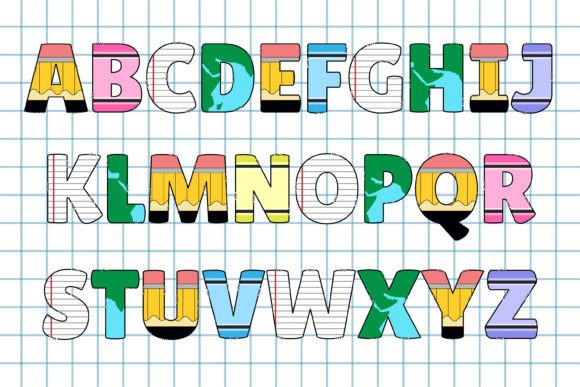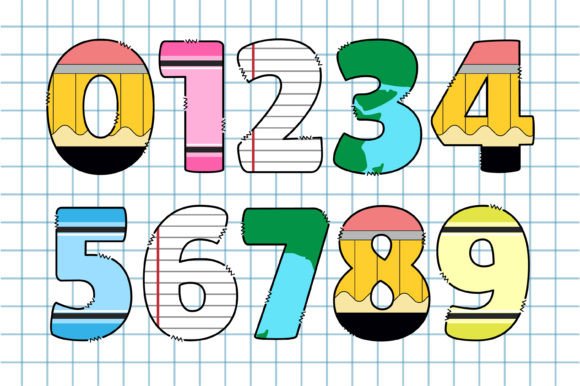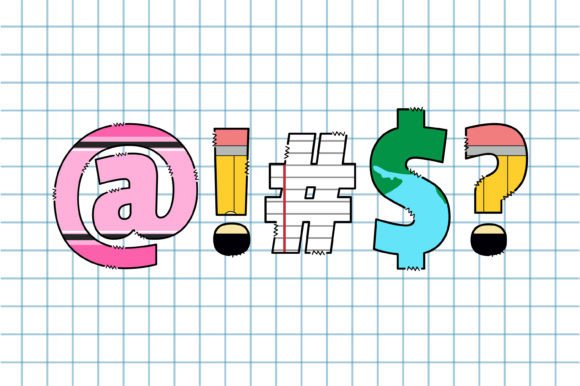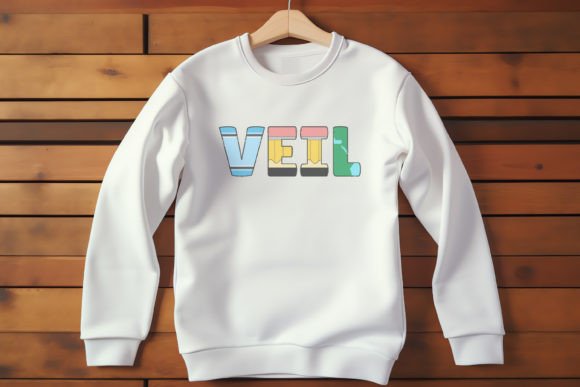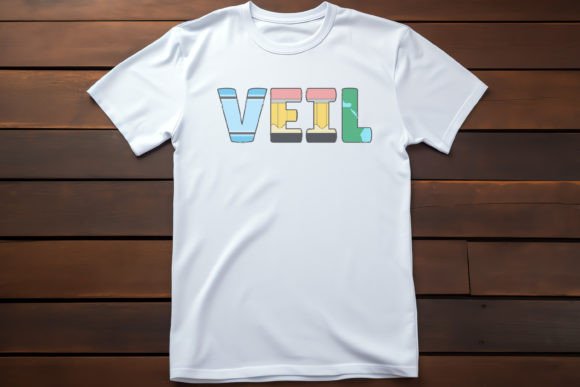
Getting Creative for the New School Year
As summer comes to a close, many of us are itching to get creative and dive into new projects. For designers, this can mean anything from designing eye-catching posters for the school hallway to crafting custom invitations for back-to-school parties. If you’re anything like us, you’re always on the lookout for the perfect font to bring your designs to life.
That’s where the Back to School Font comes in – a playful and artistic font designed specifically for kids’ projects and educational materials. With its whimsical feel and easy-to-read layout, this font is perfect for creating engaging designs that kids will love. Plus, its compatibility with popular design programs like PhotoShop and Illustrator makes it a valuable tool for designers looking to add a little extra flair to their projects.
Key Features of “Back to School Font”
- Font Family: A custom-designed sans-serif font family, specifically created for educational and back-to-school themes.
- Unique Characteristics: Features a distinctive, child-friendly design with rounded edges and friendly letterforms, perfect for educational materials and back-to-school branding.
- Language Support: Includes support for Latin, Cyrillic, and Greek scripts, making it suitable for multilingual educational content.
Back to School Font Review
I must say, I was initially drawn to the “Back to School Font” due to its playful, childlike aesthetic. The font’s rounded edges and bold lines evoke a sense of nostalgia and friendliness. ✨ It’s perfect for creating eye-catching promotional materials, such as flyers or posters, for back-to-school events or sales.
- The font’s versatility is a major plus. It can be used in a variety of contexts, from educational institutions to retail stores.
- The bold weight options make it easy to create attention-grabbing headlines.
- The font’s OpenType features allow for advanced typographic controls, making it a great choice for designers who want to add a personal touch.
However, I do have a few concerns. ✠️ The font’s consistency can be inconsistent in certain weights, which may affect the overall aesthetic of your design. Additionally, the font’s bold lines can sometimes make it difficult to read at smaller font sizes.
Overall, I’d say the “Back to School Font” is a solid choice for designers looking to add a playful touch to their work. While it may have some limitations, its unique aesthetic and versatility make it a great addition to any designer’s toolkit.
Getting the Most Out of the Font
For maximum impact, use the Back to School font in combination with bright and playful colors. You can also experiment with different font sizes and styles to create a visually appealing design. Consider using the font for headings and titles to draw attention to important information.
The Back to School font is perfect for creating designs related to education, such as: school flyers, posters, and banners. It’s also great for creating social media graphics, presentations, and other marketing materials that target a young audience.